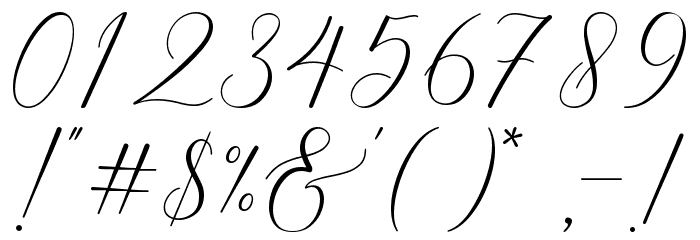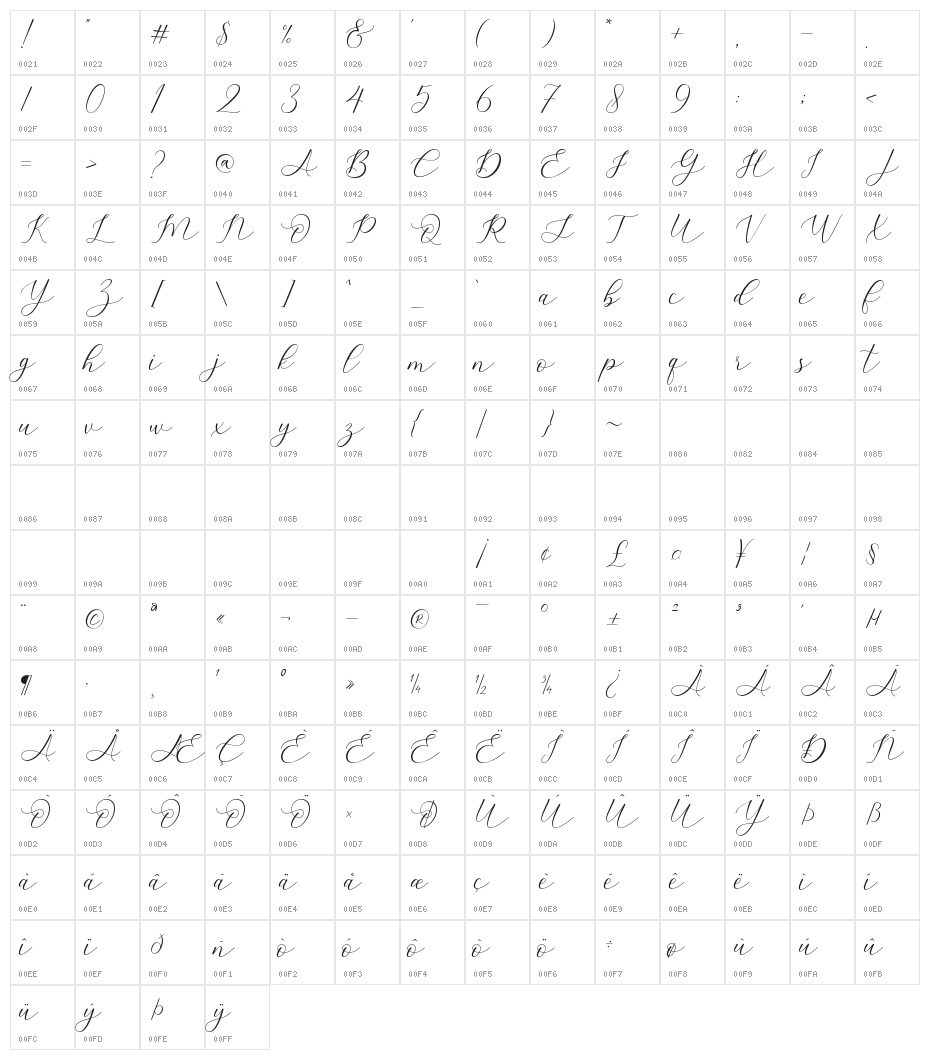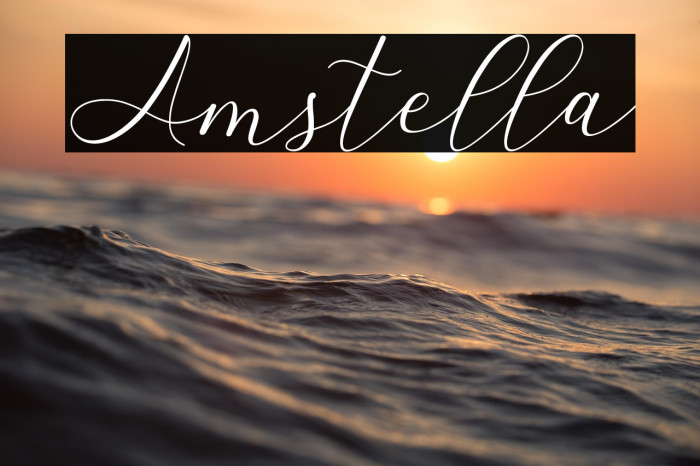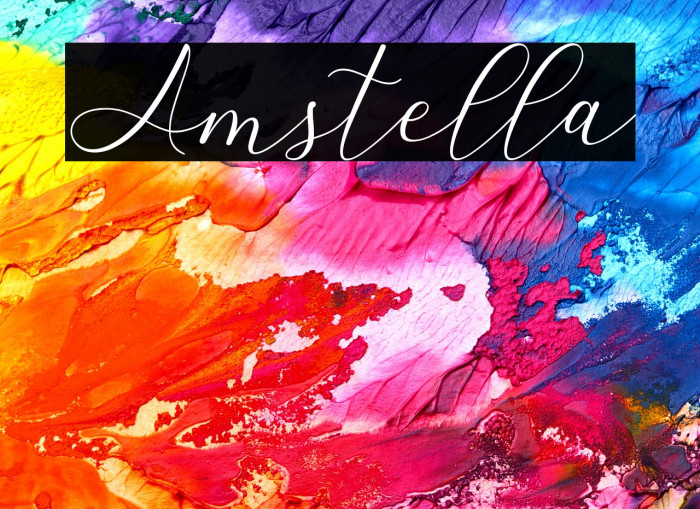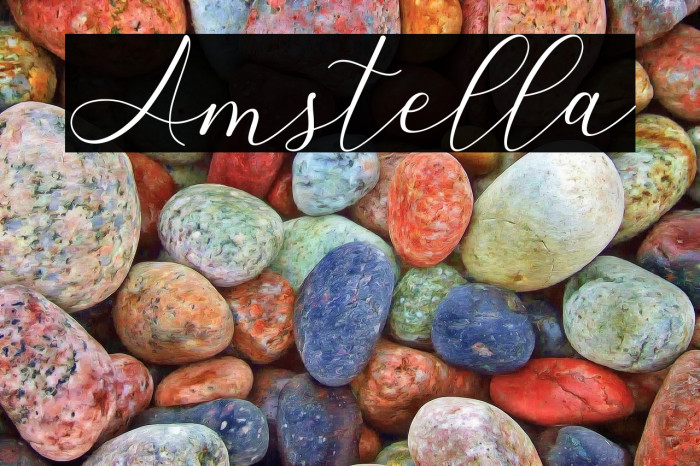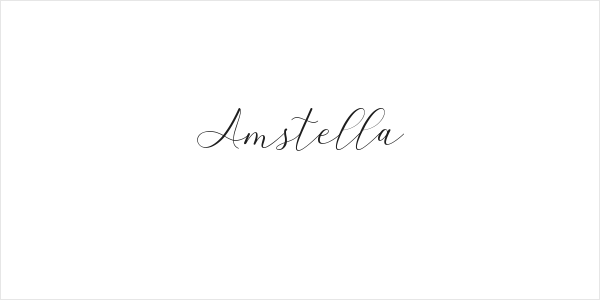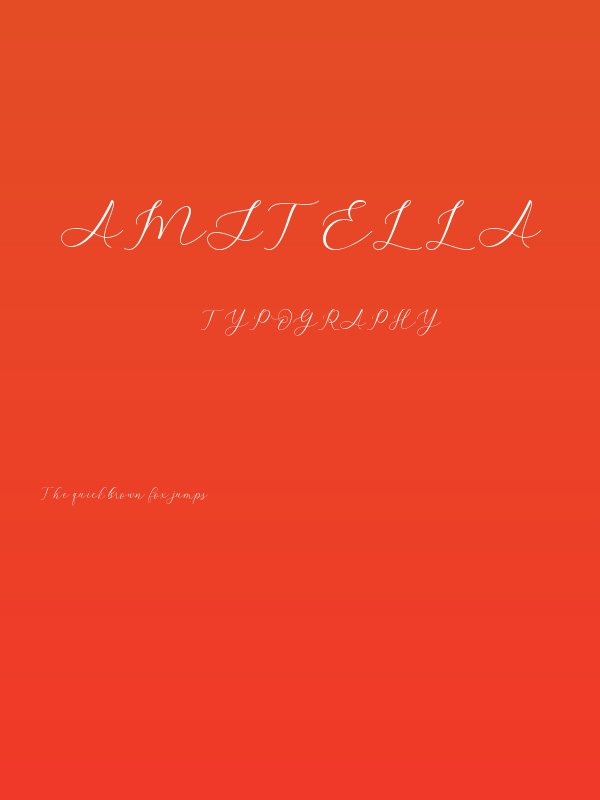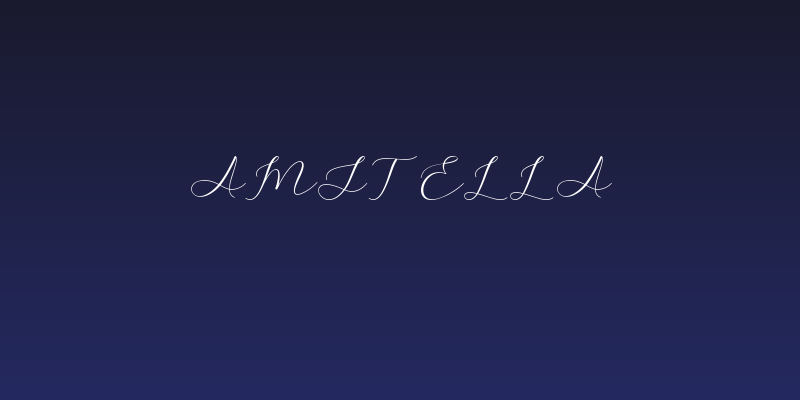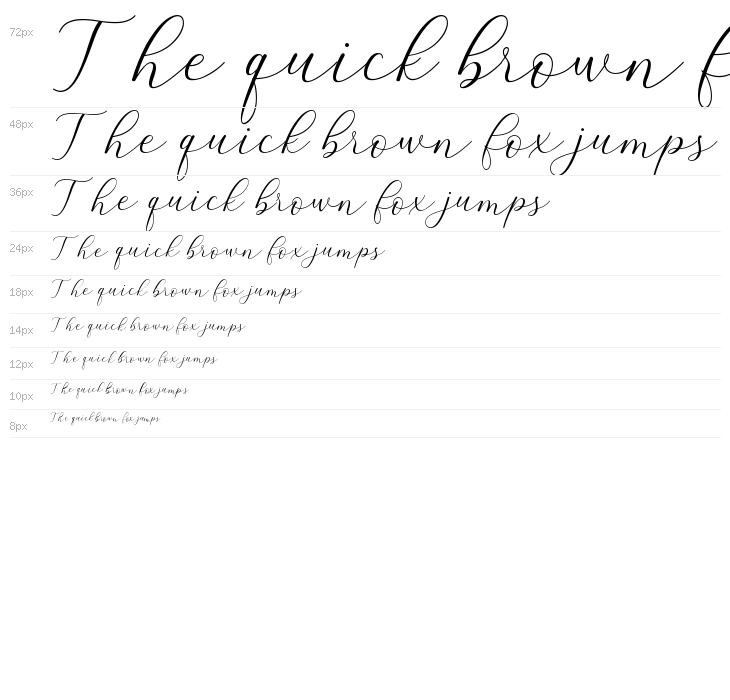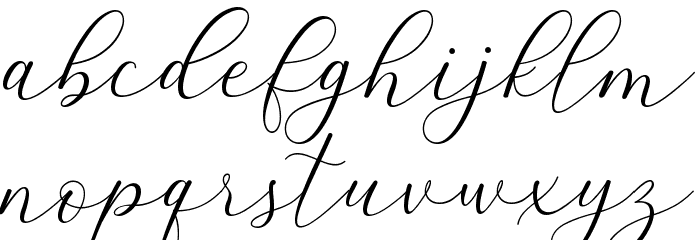
Amstella Font
Amstella Description
This elegant script font features flowing, cursive letterforms with a refined and sophisticated appearance. The uppercase letters are characterized by their graceful loops and swashes, while the lowercase letters maintain a consistent fluidity and charm. The numerals are stylishly integrated with the overall script style, offering a seamless blend with the alphabet. Special characters are thoughtfully designed to complement the script's aesthetic, making it versatile for various design needs. The font's delicate strokes and balanced proportions make it ideal for creating a sense of elegance and luxury.